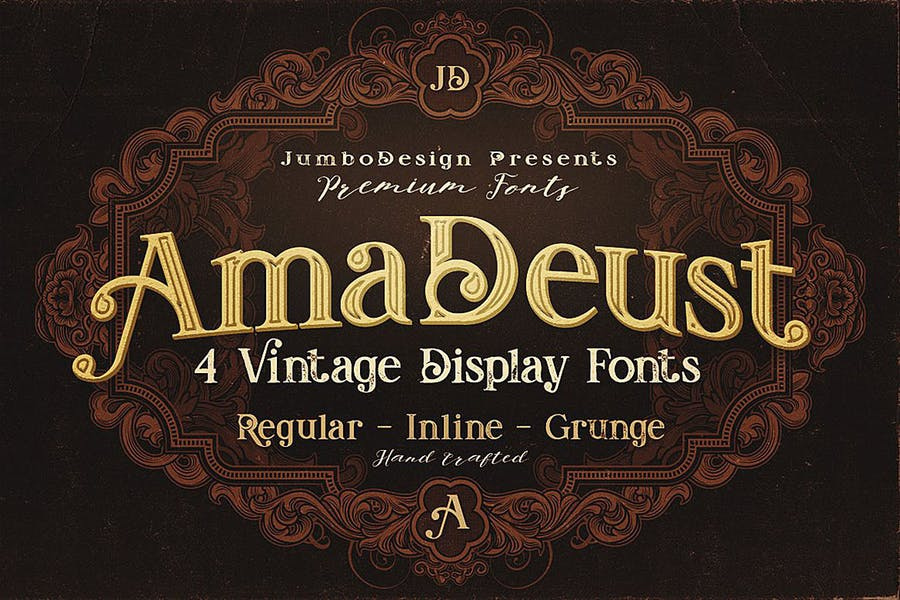
AmaDeust - Display Font
AmaDeust Display Font is perfect for bold poster design, dramatic event marketing, theatrical production graphics, powerful advertising campaigns, striking brand identity, commanding headline displays, impactful movie titles, and dynamic visual communications.
What makes AmaDeust Display Font exciting is its commanding presence that embodies dramatic strength and visual authority with bold character and undeniable impact. The font features powerful letterforms with strong geometric structure and theatrical proportions that evoke stage lights, dramatic performances, and the commanding presence of bold visual statements. Its distinctive dramatic styling and authoritative appeal communicate confidence, power, and visual dominance, making every message feel amplified for maximum impact and designed to command attention in any competitive visual environment.
The AmaDeust Display Font family includes regular weight with uppercase and lowercase letters, numerals, punctuation marks, and special characters. Premium versions often feature bold alternates and dramatic elements that enhance the powerful, commanding aesthetic perfect for display and theatrical applications.
The commanding character of AmaDeust Display Font makes it particularly valuable for entertainment companies, advertising agencies, and dramatic event producers. Its excellent impact ensures bold messaging and dramatic communications capture attention while maintaining the distinctive powerful aesthetic that appeals to audiences seeking authoritative visual expression and dramatic entertainment experiences.
Entertainment industry professionals appreciate how AmaDeust Display Font effortlessly conveys dramatic authenticity and visual power. The font's bold proportions and commanding details create impactful brand materials that establish strong connections with audiences who value dramatic expression, visual authority, and the bold impact of commanding design communication.
The versatile drama of this typeface extends to theatrical education, bold fashion branding, and powerful event marketing where dramatic authenticity enhances visual credibility and audience engagement. AmaDeust Display Font Free Download provides creative professionals with an essential tool for developing memorable, power-driven designs that resonate with audiences who embrace dramatic expression, visual authority, and the commanding impact of bold display typography in today's attention-demanding media landscape.